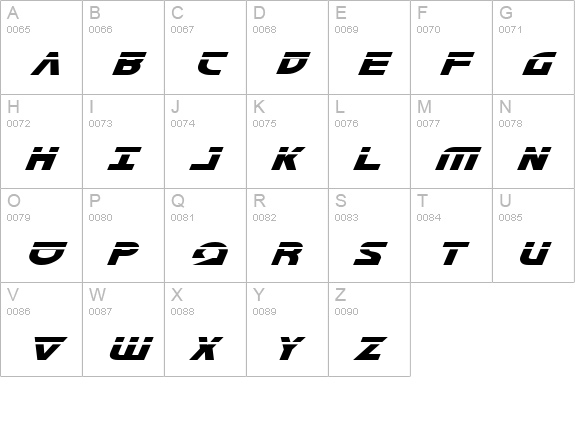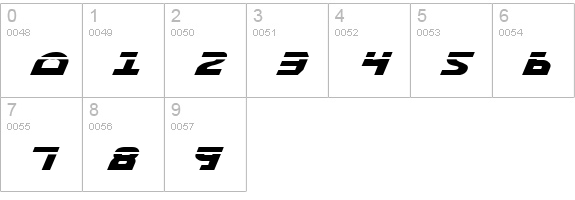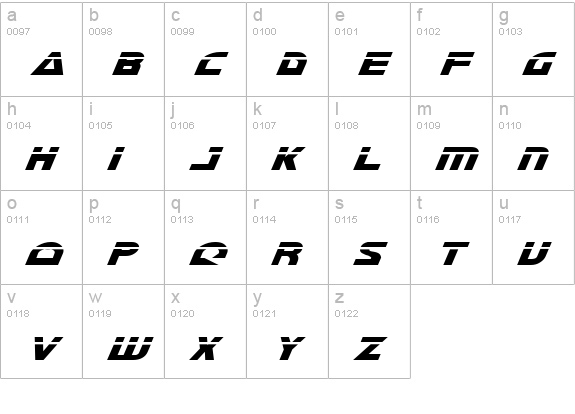
Morse NK Condensed Laser Italic is a distinctive, condensed-width, italic variant in the Morse typeface family \xE2\x80\x94 well suited to design and typography projects.
The Morse NK Condensed Laser Italic font is a sleek and modern typeface that exudes sophistication and elegance. Its condensed design and italic styling make it perfect for adding a touch of flair to any project. Whether you're designing a poster, logo, or website, this font is sure to make a statement. Best of all, the Morse NK Condensed Laser Italic font is available for free download at FontsMarket.com. Now you can add this stylish font to your collection without breaking the bank. Don't miss out on the opportunity to elevate your designs with this striking typeface. Download it today and see the difference it can make in your projects.